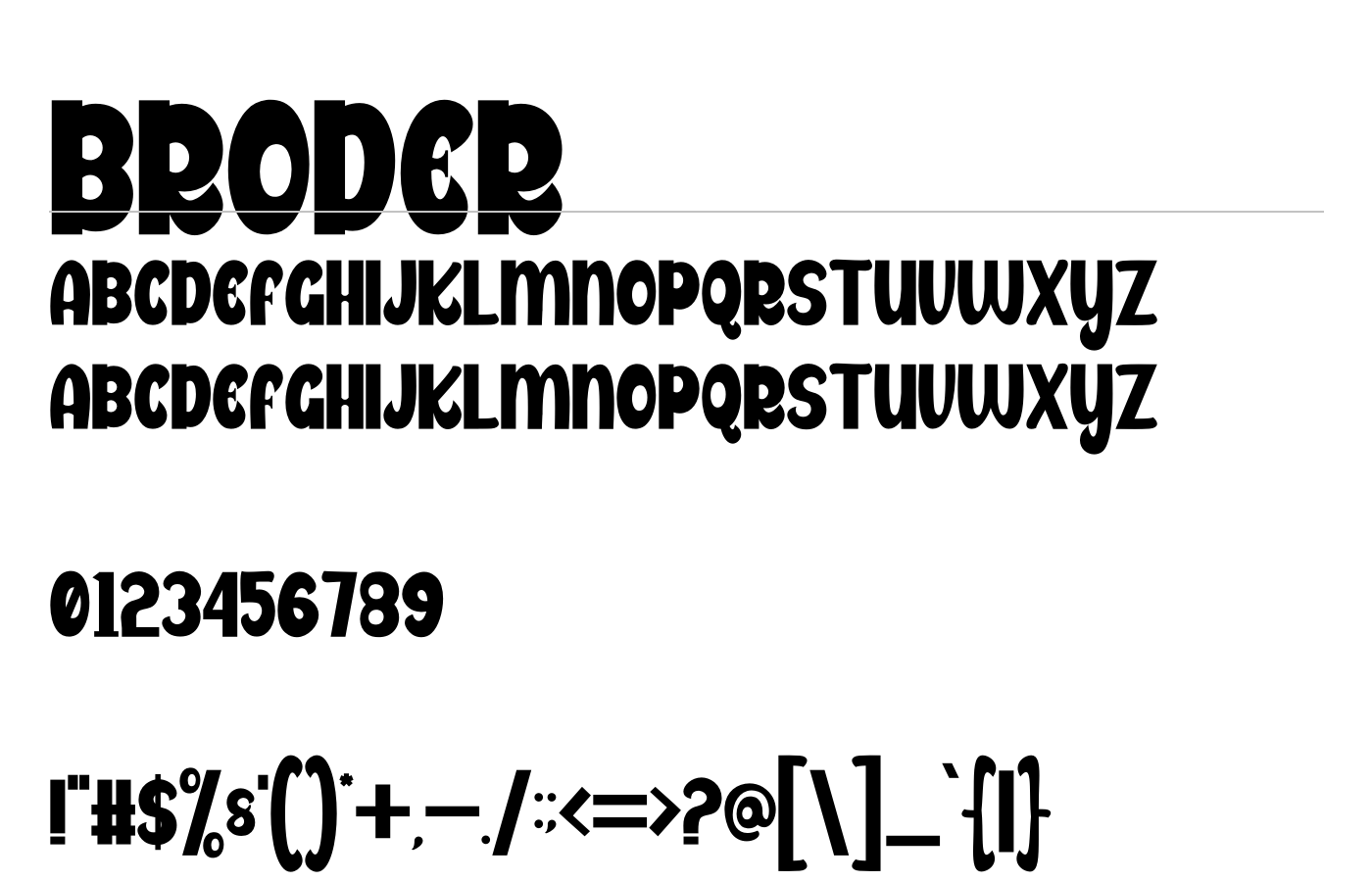
Broder Font is a bold, playful sans serif with thick strokes and rounded edges that give it a friendly, approachable feel. Its slightly condensed letterforms and unique quirky shapes make it ideal for eye-catching headlines and creative branding. This font works well for projects that want to convey a fun, modern vibe while maintaining strong readability.
Broder Font